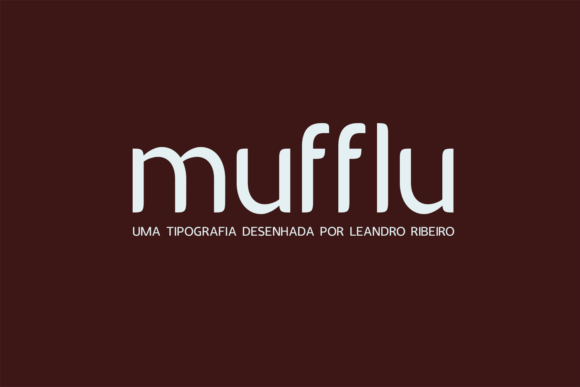
Behold, the remarkable Mufflu font, a typographic masterpiece that transcends ordinary sans serif fonts, captivating your senses and transforming your creative endeavors into breathtaking masterpieces.
Immerse yourself in Mufflu's world of effortless elegance, where clarity meets sophistication, and simplicity embraces allure. Discover the secret to captivating your audience, leaving an indelible mark on their minds with every word you craft.
Journey through the realm of Mufflu's versatility, where limits vanish and possibilities flourish. Embark on a voyage of creative expression, where your imagination becomes the compass guiding you through a sea of enchanting designs.
Harness the power of Mufflu to craft book texts that resonate with depth and intrigue, documentation that exudes professionalism, business reports that command attention, and correspondence that leaves a lasting impression.
With Mufflu as your ally, conquer the world of magazines and newspapers, captivating readers with headlines that ignite curiosity and articles that flow with effortless grace. Create posters that demand attention, advertisements that entice and engage, and multimedia presentations that transport your audience to realms of wonder.
Elevate your corporate identity to new heights with Mufflu, crafting logos that embody your brand's essence, letterheads that exude authority, and marketing materials that radiate brilliance.
Mufflu, the font that sets you apart, propelling your creative vision to dizzying heights. Its versatility knows no bounds, adapting seamlessly to any purpose, any medium, any design.